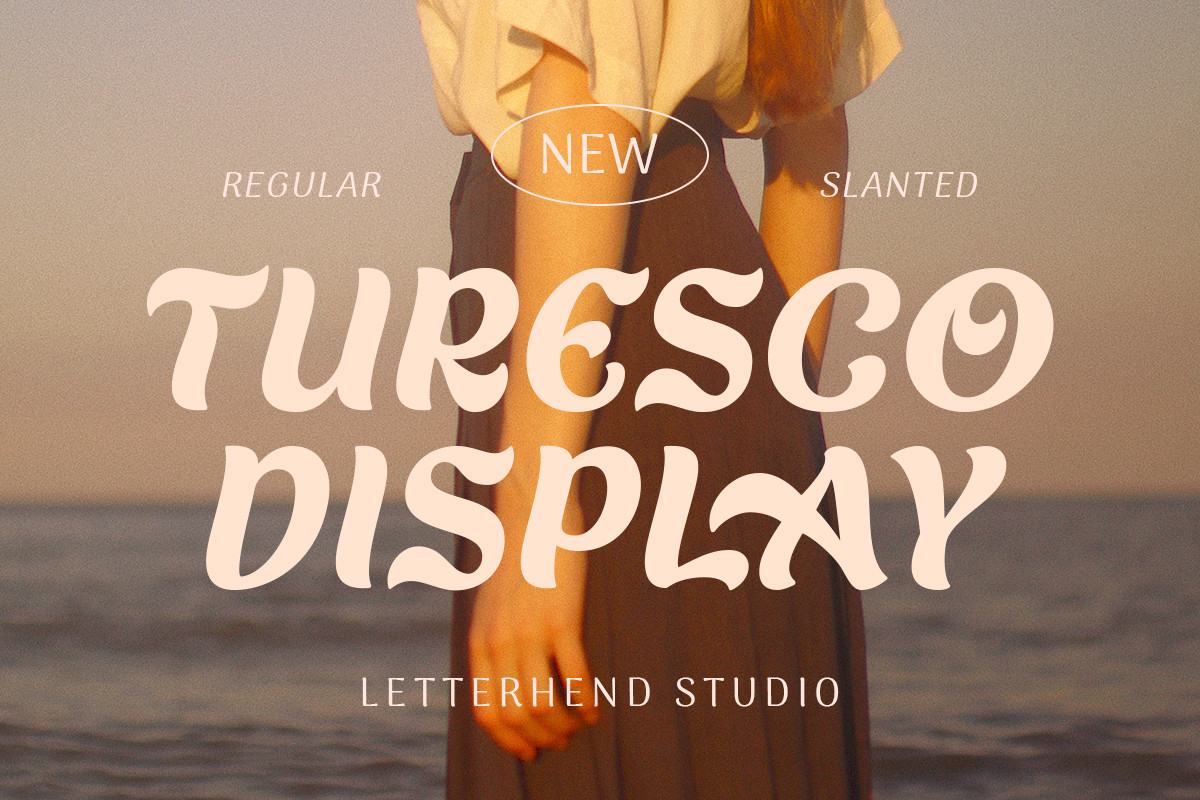
Turesco Font
Turesco Font is perfect for Mediterranean tourism branding, Turkish restaurant signage, cultural heritage organization materials, exotic travel agency promotions, traditional craft business logos, ethnic cuisine packaging, cultural festival poster designs, heritage hotel marketing, artisanal food product labels, and cultural exchange program graphics. This distinctive typeface brings authentic cultural character to Middle Eastern spice companies, traditional textile businesses, cultural museum exhibitions, heritage preservation societies, and ethnic cultural celebration materials.
Turesco Font is exciting because it embodies rich cultural heritage and traditional craftsmanship through its thoughtfully designed letterforms that honor ancient typography traditions while maintaining contemporary appeal. The font features characters with cultural authenticity and traditional proportions that reflect the elegance of historic manuscripts, the dignity of cultural artisanship, and the timeless beauty of Mediterranean design principles. Its distinctive construction demonstrates cultural respect with carefully crafted elements that create an immediate sense of heritage authenticity and traditional sophistication. The font's cultural integrity and traditional elegance make it perfect for organizations seeking to communicate cultural pride, heritage preservation, and authentic traditional values in their visual communications.
Turesco Font family includes various traditional styles: Light, Regular, Medium, Bold, Italic, Condensed, Extended, Display, Traditional, Heritage, Cultural, and Authentic variants. Each family member maintains the core cultural DNA while offering different levels of traditional formality for diverse heritage design applications. The comprehensive font collection ensures consistent cultural branding across heritage campaigns, traditional businesses, and cultural preservation materials.
Whether you're creating cultural organization brand identities, designing heritage marketing materials, developing traditional website headers, or crafting cultural celebration promotional campaigns, Turesco Font delivers outstanding cultural appeal and heritage authenticity. The font's distinctive traditional personality excels in cultural logos, heritage packaging design, traditional applications, and community projects where cultural integrity and authentic heritage representation are essential.